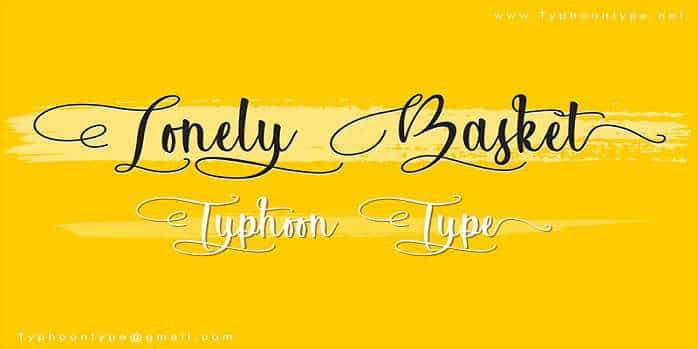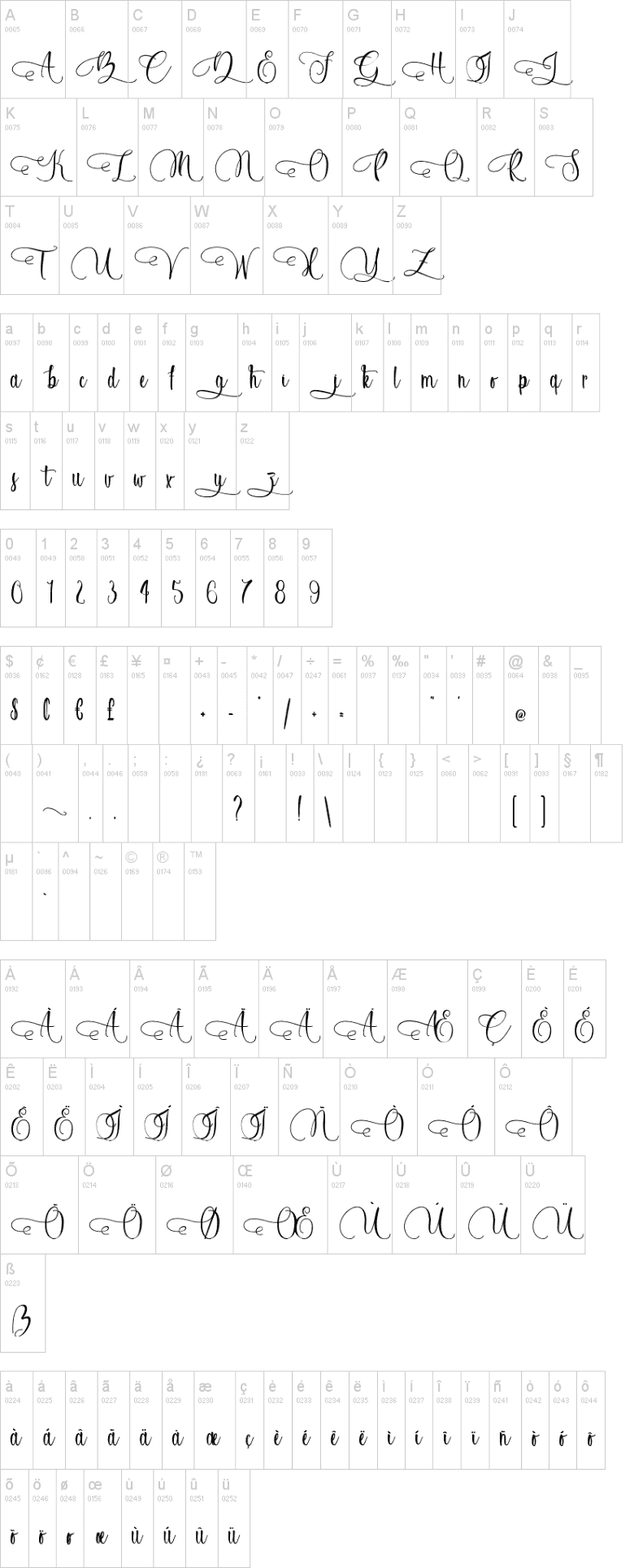
The Lonely Basket font is a beautiful script typeface with handwritten style and has some swashes designs. It is so classy and feminine that it is suitable for use in labeling wedding invitations, thank you cards, etc. Ideal for personal and business use, especially for processes that still need a human approach.